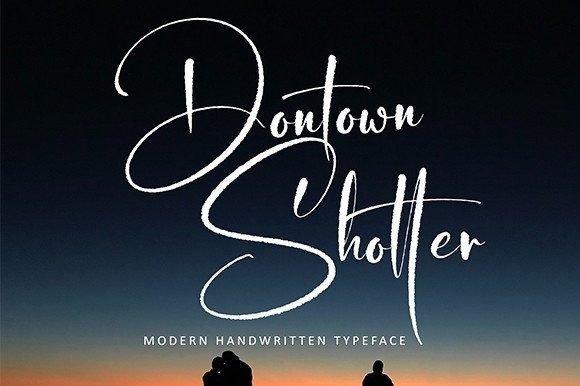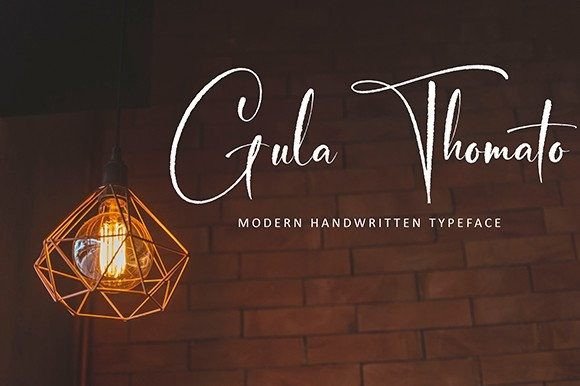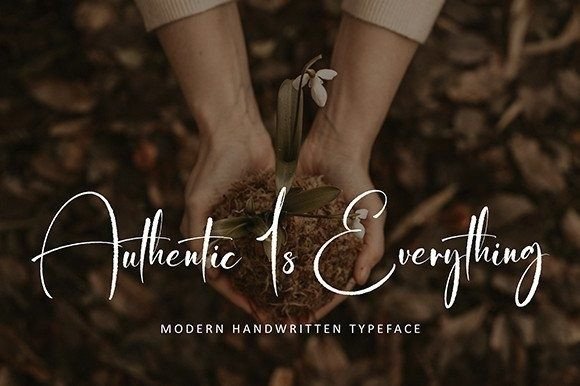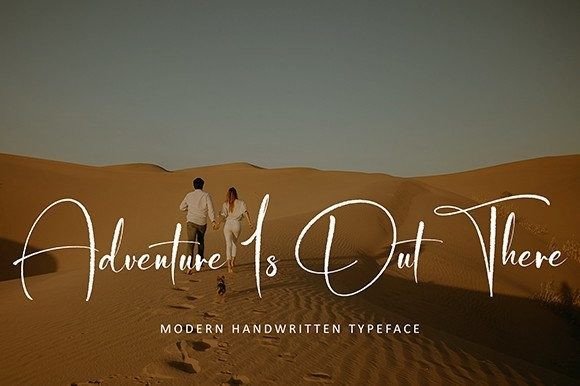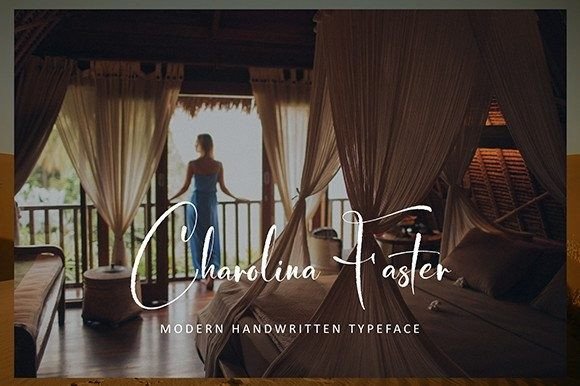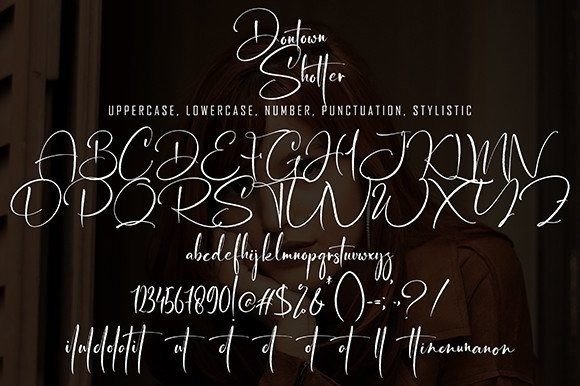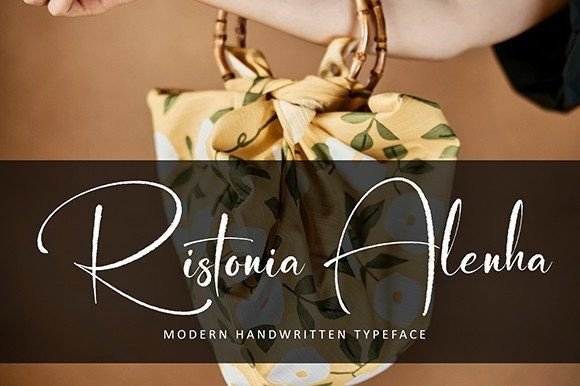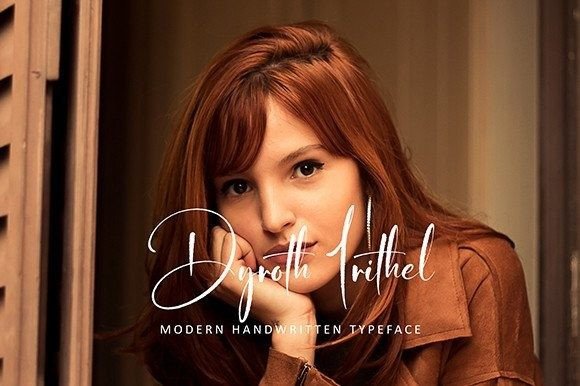
Dontown Shotter Font
About Dontown Shotter Font
“Donstown Shotter” is not just a typeface; it’s a new-style font perfect for a wide array of projects. Whether you’re working on quotes, logos, blog headers, posters, branding, letters, invitations, stationery, and more, this versatile font is designed to enhance the visual appeal of your creative endeavors.
The contemporary style of “Donstown Shotter” makes it well-suited for modern and diverse design applications. Its adaptability allows it to seamlessly integrate into various projects, from digital platforms like blogs and logos to physical materials such as posters and stationery.
The font’s versatility shines through its ability to convey different moods and tones. Whether you’re aiming for a bold and impactful message or a more subtle and elegant design, “Donstown Shotter” provides the flexibility to cater to diverse project requirements.
The inclusion of this font in your toolkit opens up a world of possibilities for your creative expression. Its suitability for quotes, logos, and various branding elements makes it a valuable asset for designers looking to craft a cohesive and visually appealing brand identity.
In summary, “Donstown Shotter” is more than just a typeface; it’s a new-style font designed for versatility. Its adaptability to a wide range of projects, from quotes to stationery, makes it a valuable tool for designers seeking a font that can effortlessly elevate the visual impact of their creative work.